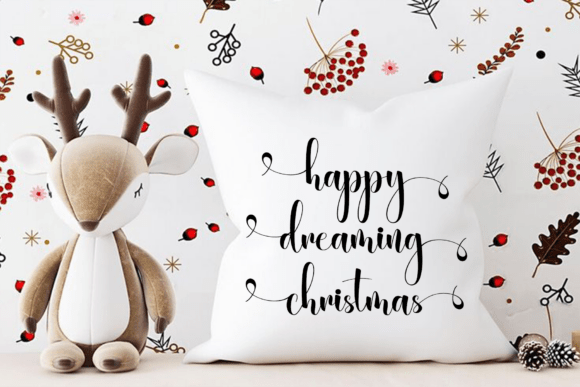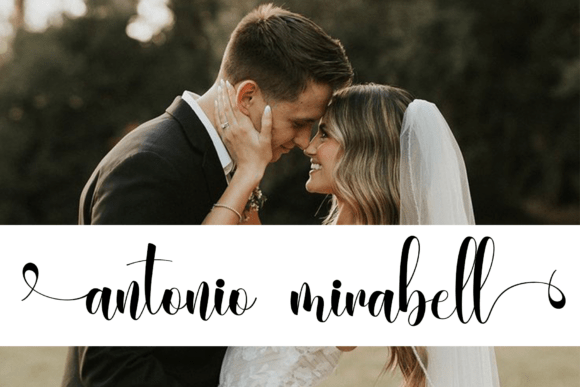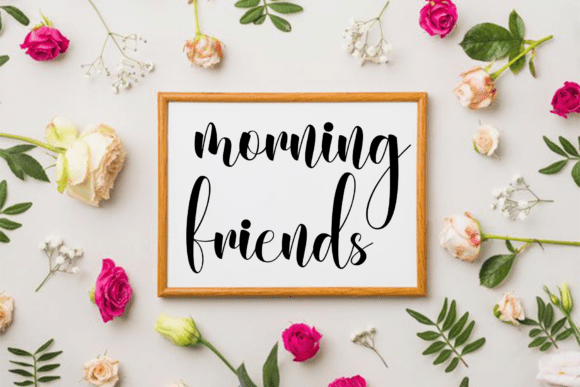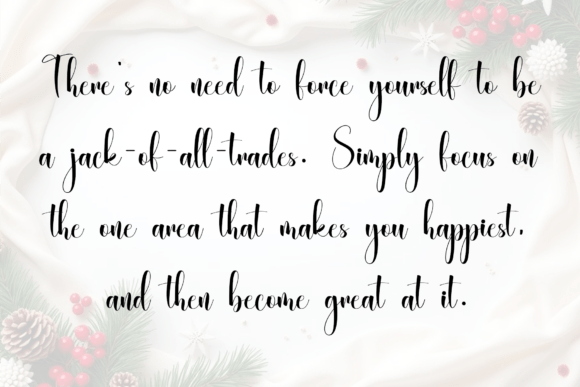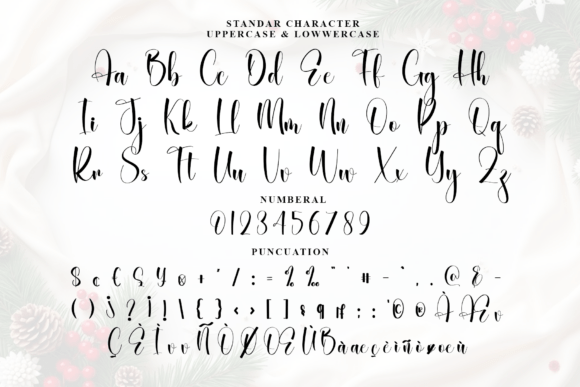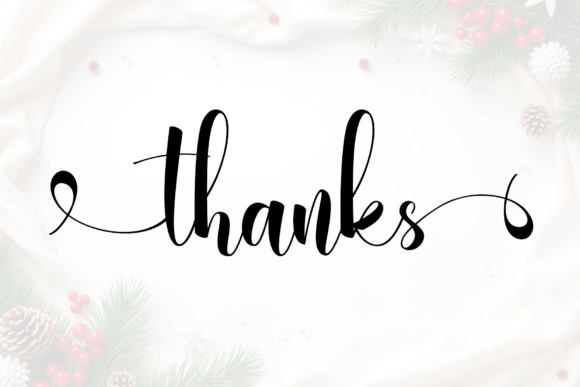
Introducing Christmas Beautiful Font: Elevate Your Designs with Elegance and Sophistication
Are you looking for a font that exudes luxury, elegance, and a personal touch? Look no further than Christmas Beautiful Font, a stunning script font designed to take your designs to the next level. This beautiful typeface is perfect for high-end branding, wedding invitations, product packaging, and logotypes that require a unique and memorable look.
What Makes Christmas Beautiful Font Special?
Christmas Beautiful Font, also known as Agatha, is a sophisticated script font that features clean, sweeping connections and a high-contrast style, mimicking authentic, confident penmanship. The font’s elegant and refined appearance makes it perfect for designers who want to create premium, emotional, and stylish communication.
One of the standout features of Christmas Beautiful Font is its decorative end swashes and stylistic alternates, allowing for exquisite customization. With these features, you can transform simple text into a bespoke piece of art that speaks with an air of refined quality and personal flair.
Christmas Beautiful Font is an essential asset for designers focused on creating high-end branding, elegant wedding invitations, custom product packaging, and feminine logotypes. The font’s unique and professional design ensures that your designs stand out from the crowd and leave a lasting impression.
Crafters and designers can use Christmas Beautiful Font to add a touch of elegance and sophistication to their projects. Whether you’re creating custom stationery, party invitations, or social media graphics, this font is sure to impress.
PUA-Encoded for Effortless Access
Christmas Beautiful Font is PUA-encoded, ensuring effortless access to all glyphs, swashes, and alternate characters. This means you can easily access and use the font’s features to create stunning designs without any hassle.
Key Features of Christmas Beautiful Font
- Sophisticated script font: Christmas Beautiful Font features a unique and professional design that’s perfect for high-end branding and elegant designs.
- Clean and sweeping connections: The font’s clean and sweeping connections give it a elegant and refined appearance.
- High-contrast style: The font’s high-contrast style mimics authentic, confident penmanship.
- Decorative end swashes and stylistic alternates: Add a touch of elegance and sophistication to your designs with the font’s decorative end swashes and stylistic alternates.
- PUA-encoded: Effortlessly access all glyphs, swashes, and alternate characters with the font’s PUA encoding.
Tips for Using Christmas Beautiful Font
- Pair with contrasting fonts: Pair Christmas Beautiful Font with contrasting fonts to create visual interest and hierarchy.
- Use decorative swashes: Add a touch of elegance and sophistication to your designs with the font’s decorative swashes.
- Experiment with colors: Experiment with different colors and textures to add depth and interest to your designs.
Christmas Beautiful Font is a stunning script font that’s perfect for designers and crafters who want to create elegant and sophisticated designs. With its unique and professional design, decorative end swashes, and PUA encoding, this font is sure to take your designs to the next level. Whether you’re creating high-end branding, wedding invitations, or social media graphics, Christmas Beautiful Font is an essential asset for any designer.